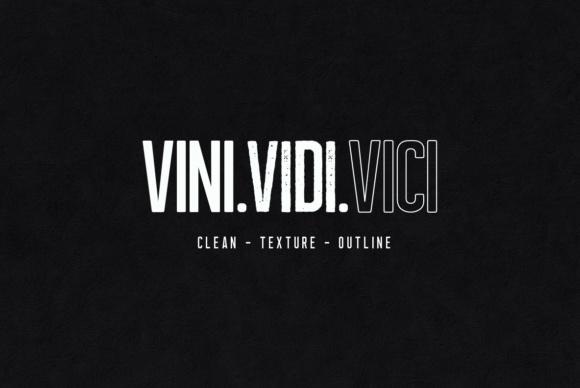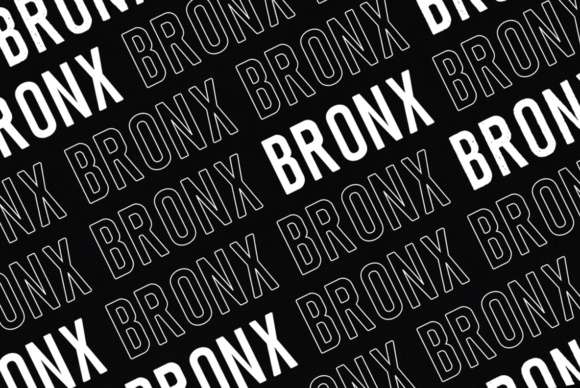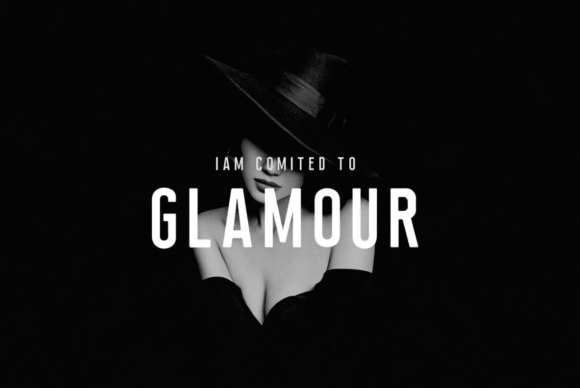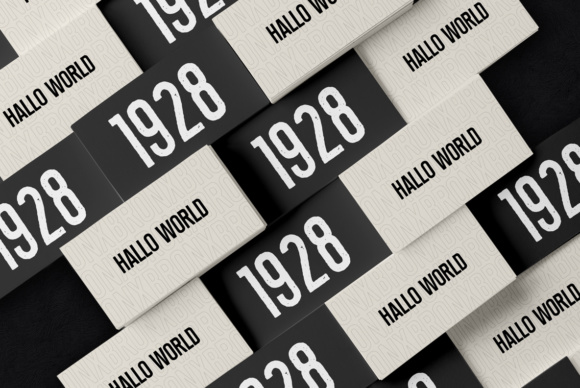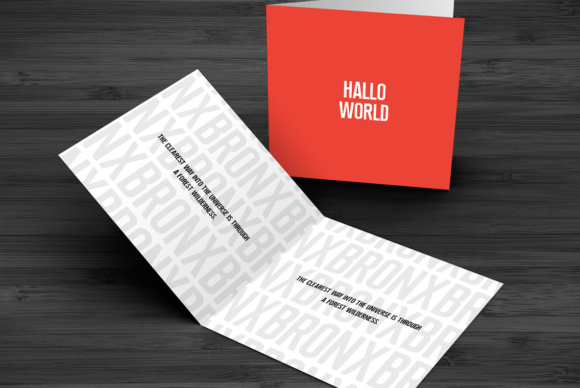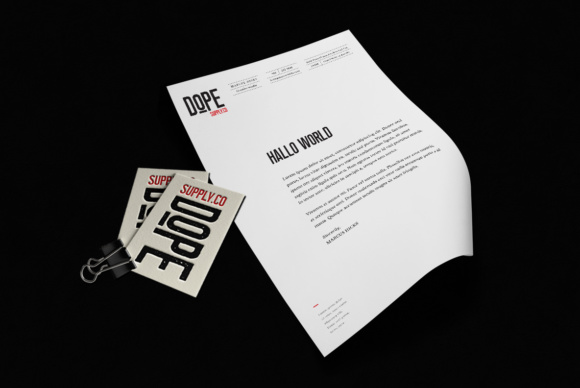
The Perfect Match for Your Creative Vision
Remember that moment when you finally find the perfect font to bring your design to life? It’s like stumbling upon a hidden gem, and your entire project takes a leap forward. For designers, finding the right font can be a game-changer. That’s why we’re excited to introduce you to the Bronx Family Font, a versatile sans serif family that’s about to become your new best friend.
| 👤 Author | I Do Not Sleep |
The Bronx Family Font is designed to be flexible and adaptable, with three distinct versions to choose from: regular, outline, and trace. Whether you’re working on a branding project, creating a logo, designing a magazine, or packaging a product, this font has got you covered. Its clean lines and modern aesthetic make it an ideal choice for a wide range of applications.
Bronx Family Font Key Features
- Font Family: Bronx Family Font is a sans-serif font family that includes 4 weights (Light, Regular, Bold, Black) and 2 styles (Italic and Oblique).
- Character Set: Supports a wide range of languages, including Latin, Greek, Cyrillic, and many more.
- Unique Characteristics: Features a clean and modern design, with subtle rounded corners and open apertures that give it a friendly and approachable feel.
Designer Review: Bronx Family Font
I’ve had the chance to work with the Bronx Family Font, and I’m sharing my honest thoughts on this font.
- The Bronx Family Font is a unique blend of modern and vintage elements, making it perfect for projects that need a touch of nostalgia.
- The font’s versatility allows it to work well in various contexts, from headings to body text.
- The bold and italic weights are well-designed, adding depth to the font’s character.
- The font’s readability can be compromised at smaller font sizes, which may require additional design adjustments.
- The regular weight may not be as polished as the bold and italic weights, which could impact the overall aesthetic.
- The font’s range of languages supported is limited, which may be a concern for projects requiring multiple language support.
The Bronx Family Font has a lot to offer, but its limitations hold it back from being a go-to choice. With some careful design decisions, it can be a great addition to a project, but it’s essential to be aware of its limitations.
Tips for Getting the Most Out of the Bronx Family Font
Here are some tips to help you get the most out of the Bronx Family Font:
- Use the font in combination with bold or italic text to add emphasis.
- Experiment with different font sizes and line heights to create visual interest.
- Use the font in conjunction with other design elements, such as images and graphics, to create a cohesive look.
Compared to Bronx Family Font, Playfair Display has a more refined and luxurious feel, while Bronx Family Font has a more rustic and vintage vibe. Playfair Display is suitable for use in titles and headings, while Bronx Family Font is more versatile and can be used for body text.
Compared to Bronx Family Font, Merriweather has a more traditional and timeless feel, while Bronx Family Font has a more modern and vintage vibe. Merriweather is more suitable for use in body text, while Bronx Family Font can be used for both body text and titles.
Is the Bronx Family Font suitable for use in large-scale signage or displays?
Yes, the Bronx Family Font is designed to be highly legible at large sizes, making it an ideal choice for use in signage, displays, and other applications where clear visibility is crucial. Its clean lines and geometric shapes ensure that the font remains readable even at sizes of 100 inches or larger.